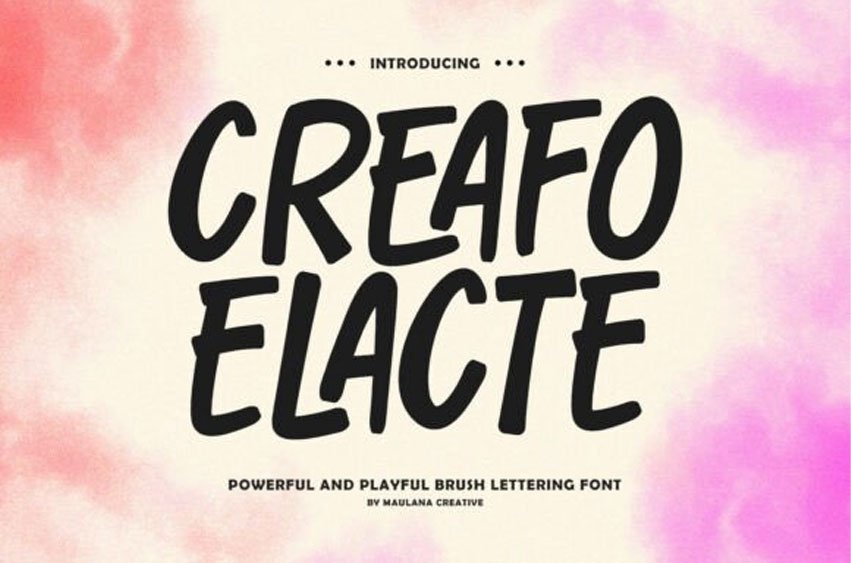
Creafo Elacte Font is a powerful and playful Brush Lettering font designed to inject instant energy and a bold, handcrafted appeal into your designs.
This vibrant display typeface captures the authentic texture and momentum of a thick brush stroke, resulting in confident, slightly irregular lines that feel genuinely spontaneous and full of life. The strong, condensed letterforms of the Creafo Elacte font are highly legible, making it an excellent choice for attention-grabbing headlines, dynamic product packaging, sports-themed apparel, and impactful social media graphics.
Its rugged yet fun aesthetic gives it a versatile edge, perfect for projects needing a powerful, youthful, and slightly retro vibe. The Creafo Elacte typeface includes all-caps letters, numerals, punctuation, and a full suite of glyphs to keep your designs fluid and expressive. Use this unmistakable Creafo Elacte font to create designs that shout personality and demand to be noticed with its unique, bold stroke and irresistible playfulness.